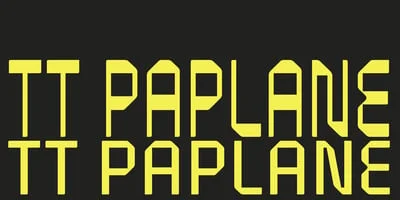
TT Paplane Font
TT Paplane Font is perfect for aviation company branding, aerospace industry logos, travel agency designs, pilot training materials, aircraft maintenance manuals, flight simulator interfaces, airport signage systems, aviation magazine layouts, airline marketing campaigns, and transportation design projects that require technical precision with modern appeal.
This font is exciting because it captures the streamlined efficiency and technological sophistication of modern aviation with letterforms inspired by aircraft design principles and aerodynamic flow. TT Paplane Font features precise geometric construction and optimized spacing that reflects the engineering excellence of contemporary aircraft while ensuring exceptional readability in both technical documentation and marketing materials.
TT Paplane Font family includes Regular, Bold, Light, Medium, Condensed, Extended, Italic, and Display versions, plus aviation-specific symbols, technical icons, directional arrows, and specialized punctuation marks that enhance professional aviation communications and provide comprehensive solutions for industry applications.
For aviation and transportation design projects, TT Paplane Font delivers unmatched technical accuracy and professional sophistication. The font's engineered letterforms and precise proportions make it ideal for safety-critical applications where clarity is essential. Its modern aesthetic appeals to both technical professionals and general audiences in aviation marketing. The character set includes specialized aviation symbols and technical notation that meet industry standards. Professional designers appreciate its versatility in conveying both technical expertise and innovative spirit while maintaining excellent legibility across cockpit displays, maintenance documentation, and consumer-facing marketing materials, making it the perfect choice for brands in the aviation and aerospace industries.